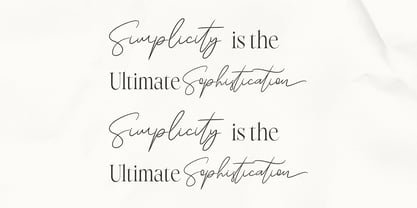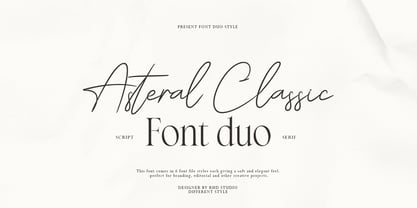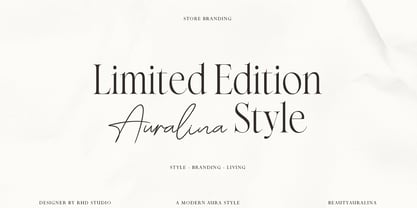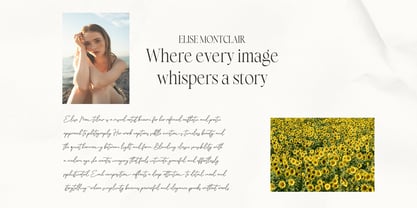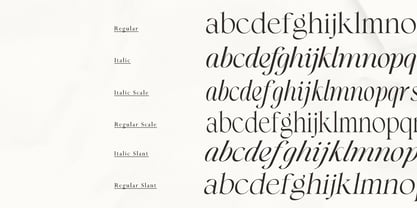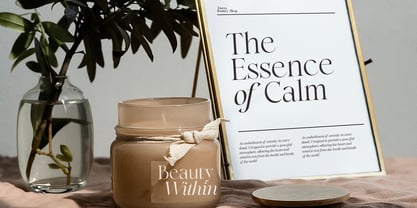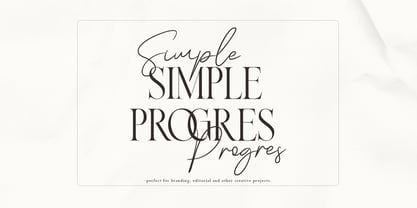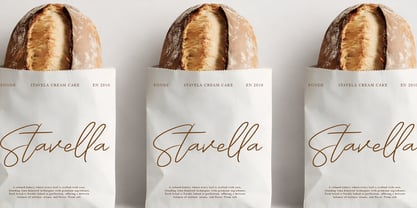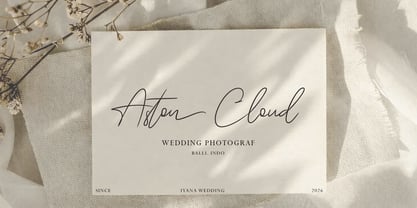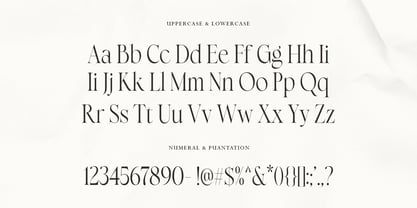
Asteral Classic
by Rhd Studio
The Asteral Classic Font Family was designed by Rahmad Rizky and published by Rhd Studio. Asteral Classic contains 6 styles and family package options.
Introducing Asteral Classic Font Duo, a harmonious blend of serif and script styles that creates a balanced and elegant look. Asteral Classic Font Duo comes in a variety of styles in both serif and script. The serif includes three weights—Light, Regular, and Bold. The script offers four unique versions: Regular, serif and script Creating Asteral Classic Font Duo is a joy—I hope you'll enjoy using it in your projects, too! Why You'll Love Asteral Classic Font Duo: The Perfect Font Pairing: Enjoy the beautiful balance between serif and script, creating an effortlessly elegant look. Complete Punctuation & Symbols: Everything you need is here—punctuation, numbers, and special characters. Extensive Language Support: English, Italian, French, Spanish, German, Portuguese, Dutch, Danish, Norwegian, and Swedish.
Asteral Classic